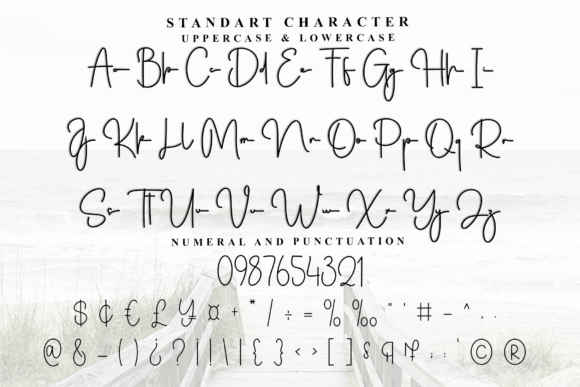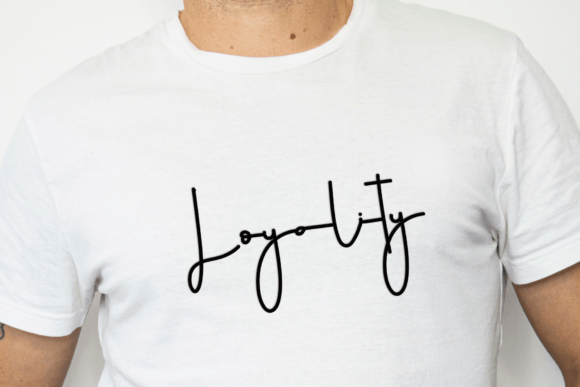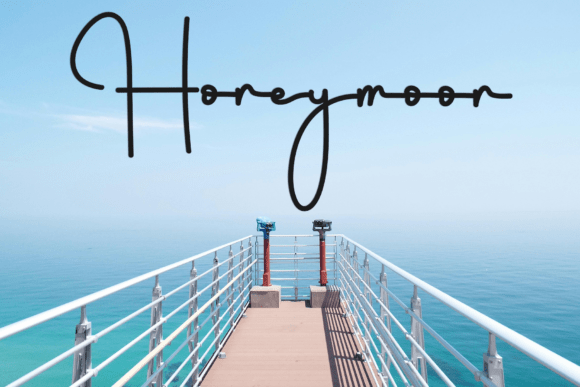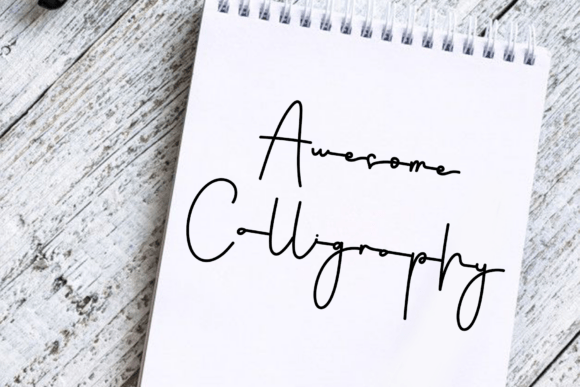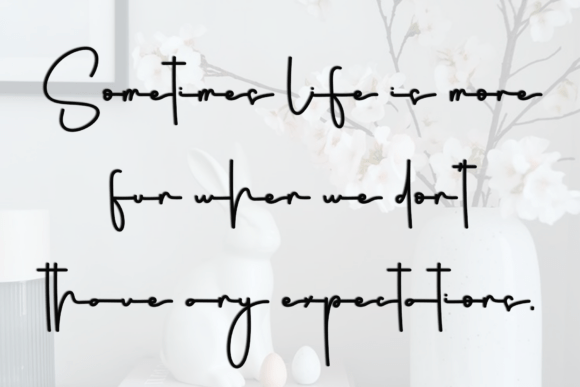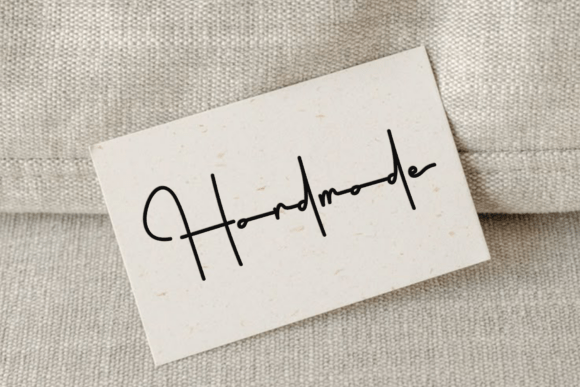
Introducing Happy Place Font: The Ultimate Holiday Typeface
Are you tired of using the same old fonts for your holiday designs? Look no further! Happy Place Font is here to bring a touch of festive magic to your creations. This merry and decorative typeface is specifically designed to capture the spirit of the holiday season, making it perfect for greeting cards, gift tags, and holiday-themed projects.
The Perfect Holiday Companion
Happy Place Font is more than just a typeface – it’s an experience. With its whimsical flair and decorative elements, it adds a touch of enchantment to your designs. Whether you’re a designer, crafter, or DIY enthusiast, this font is sure to bring a cheerful and nostalgic ambiance to your words. Imagine being able to create stunning holiday-themed projects that evoke feelings of joy and wonder – Happy Place Font makes it possible!
Key Features of Happy Place Font
- PUA Encoded: Happy Place Font is PUA encoded, which means you can access all of the amazing glyphs and ligatures with ease! This makes it simple to use and customize your designs.
- Decorative Elements: The font features beautiful decorative elements that add a touch of festivity to your designs.
- Whimsical Flair: Happy Place Font has a whimsical flair that makes it perfect for holiday-themed projects.
- Multipurpose: Use Happy Place Font for a variety of projects, including greeting cards, gift tags, holiday-themed parties, and more!
Why Choose Happy Place Font?
With so many fonts available, why choose Happy Place Font? Here are just a few reasons:
- Unique and Eye-catching: Happy Place Font is a unique and eye-catching typeface that will make your designs stand out from the crowd.
- Easy to Use: The font is easy to use and customize, even for those with limited design experience.
- High-quality: Happy Place Font is a high-quality typeface that is designed to produce stunning results.
Tips for Using Happy Place Font
Here are a few tips for using Happy Place Font:
- Pair with Other Fonts: Experiment with pairing Happy Place Font with other fonts to create a unique and eye-catching look.
- Use for Headings and Titles: Use Happy Place Font for headings and titles to add a touch of festivity to your designs.
Inspiration for Your Designs
Need some inspiration for your designs? Here are a few ideas to get you started:
- Holiday Greeting Cards: Create stunning holiday greeting cards with Happy Place Font.
- Gift Tags: Add a touch of festivity to your gift tags with Happy Place Font.
- Holiday-themed Parties: Use Happy Place Font to create festive and fun party decorations.